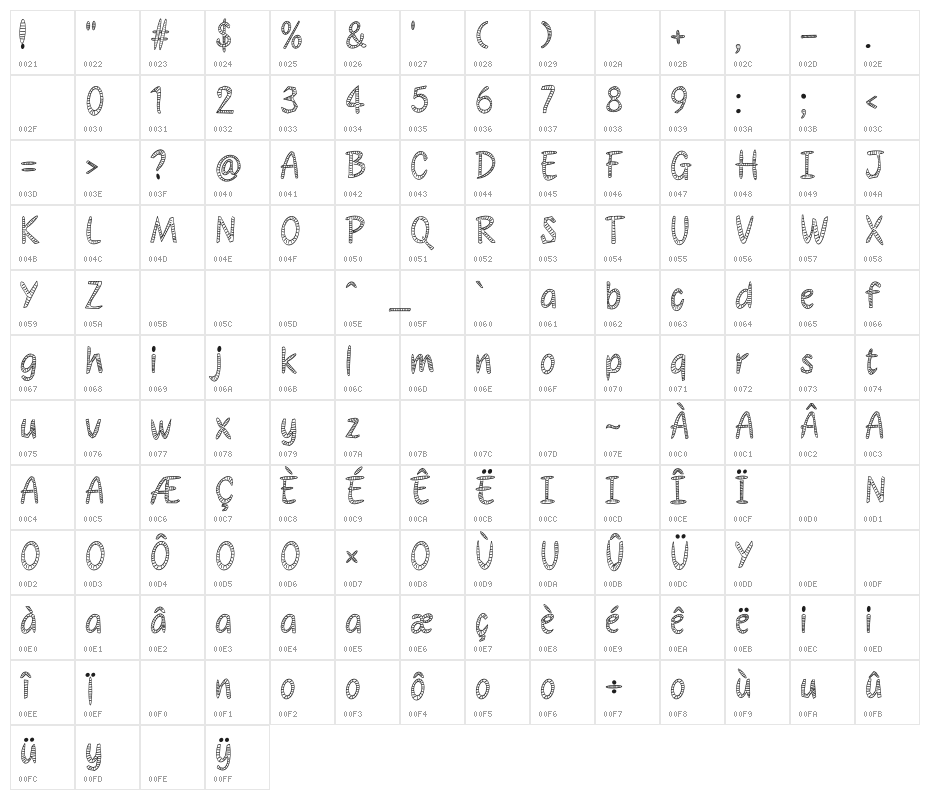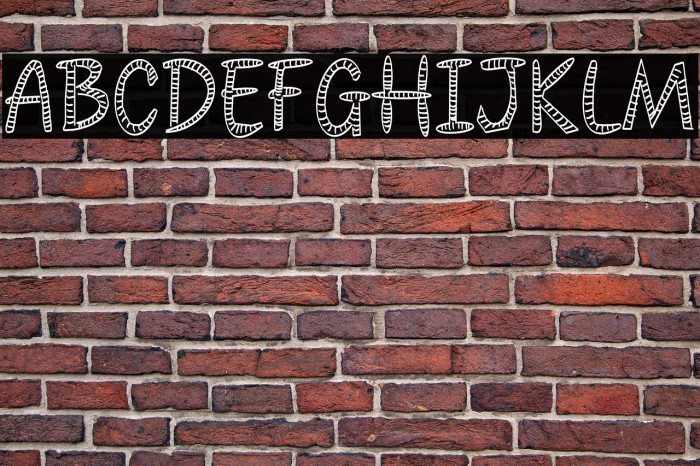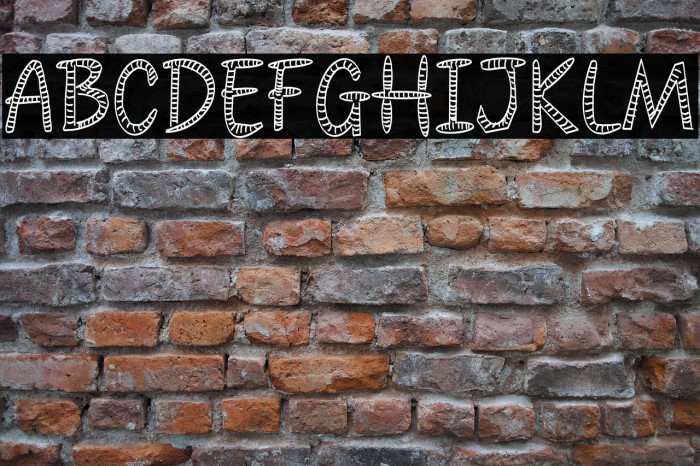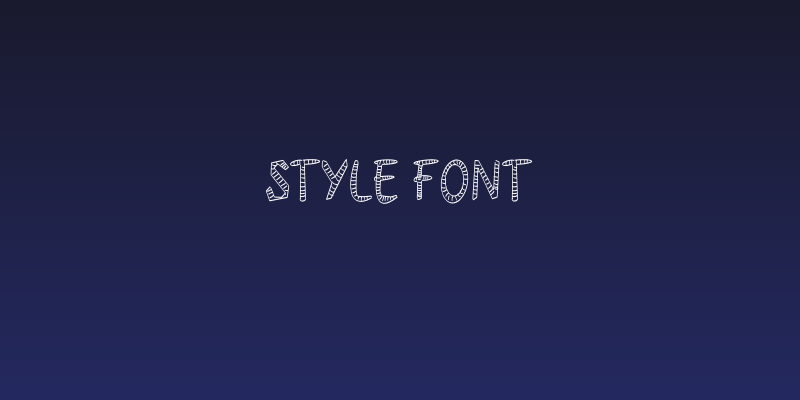
Style Font Font
Style Font Description
A playful, decorative font with a hand-drawn, striped pattern on each character, giving it a whimsical and fun appearance.
| Overall Style | Whimsical, Fun, Hand-drawn |
| Use Case | Headlines, Posters, Creative projects |
| Proposed Projects | Children's books, playful posters, creative invitations. |